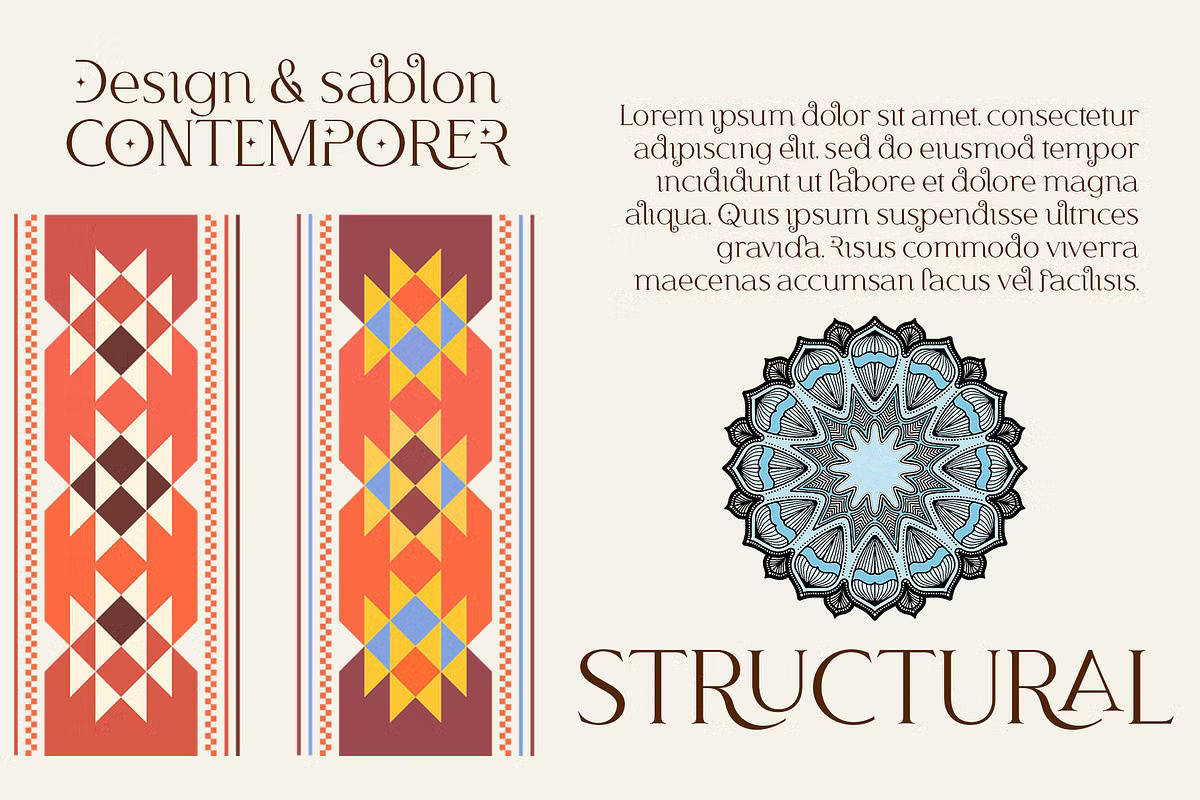
Korcy Font
Korcy is an elegant and sophisticated display serif font featuring sharp, refined serifs. It comes in two distinct styles: Regular and Oblique. The font includes a variety of standard ligatures and titling options, making it a versatile choice for creative typography.
Korcy supports multiple languages that use the Latin alphabet and maintains a high level of readability and style.